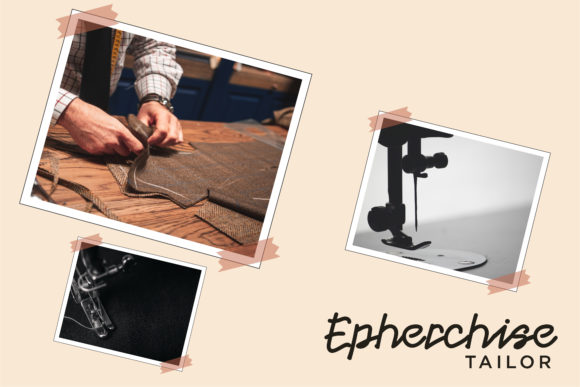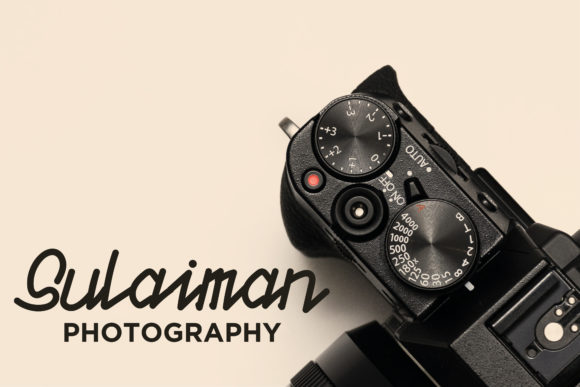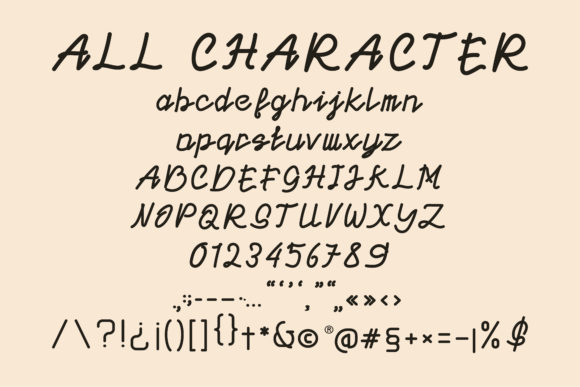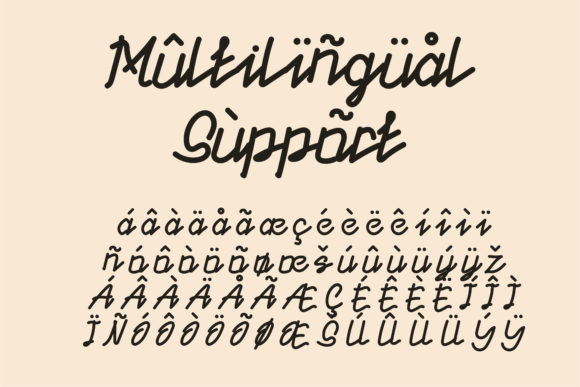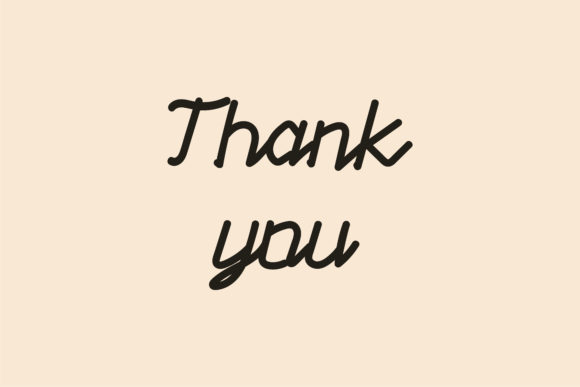
The Dickcissel Font: A Vintage Gem for Your Creative Projects
I’ll never forget the time I was working on a branding project for a luxury wedding planner, and I just couldn’t find the right font to capture the essence of their high-end events. The client wanted something elegant, sophisticated, and unique, but everything I tried seemed to fall flat. That’s when I stumbled upon the Dickcissel font, and it was love at first sight! 💕
Expertly designed to make your creations look out of this world, Dickcissel is a vintage-styled, elegant handwritten font that’s perfect for designers, crafters, and creative hobbyists alike. In this article, we’ll dive into the world of Dickcissel, exploring its features, how to use it, and some similar fonts you might love.
An Honest Review of Dickcissel
What I Love About Dickcissel ✨
- ✅ Elegant and sophisticated: Dickcissel has a luxurious feel that’s perfect for high-end projects.
- ✅ Versatile: This font works beautifully on a variety of materials, from wedding invitations to branding materials and digital graphics.
- ✅ Unique character: Dickcissel has a distinct personality that sets it apart from other fonts.
- ✅ Highly legible: Despite its elegant feel, Dickcissel is surprisingly easy to read, even at smaller sizes.
While Dickcissel is an amazing font, it’s not perfect. Here are a few things to keep in mind:
- ⚠️ Not ideal for body text: While legible, Dickcissel is best used for headlines, titles, or short paragraphs.
The Story Behind Dickcissel
While the origins of Dickcissel might be shrouded in mystery, it’s clear that this font was designed with elegance and sophistication in mind. Imagine a skilled calligrapher, pouring over ancient manuscripts and typography texts, seeking inspiration for their next project. That’s the kind of care and attention that went into creating Dickcissel.
Q: What is the best use for Dickcissel?
A: Dickcissel is perfect for high-end branding, wedding invitations, luxury packaging, and any project that requires an elegant, sophisticated feel.
Q: Is Dickcissel a difficult font to read?
A: Despite its elegant feel, Dickcissel is surprisingly easy to read, even at smaller sizes. However, it’s best used for headlines, titles, or short paragraphs.